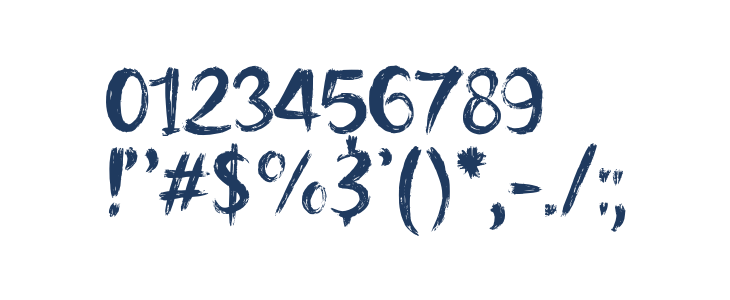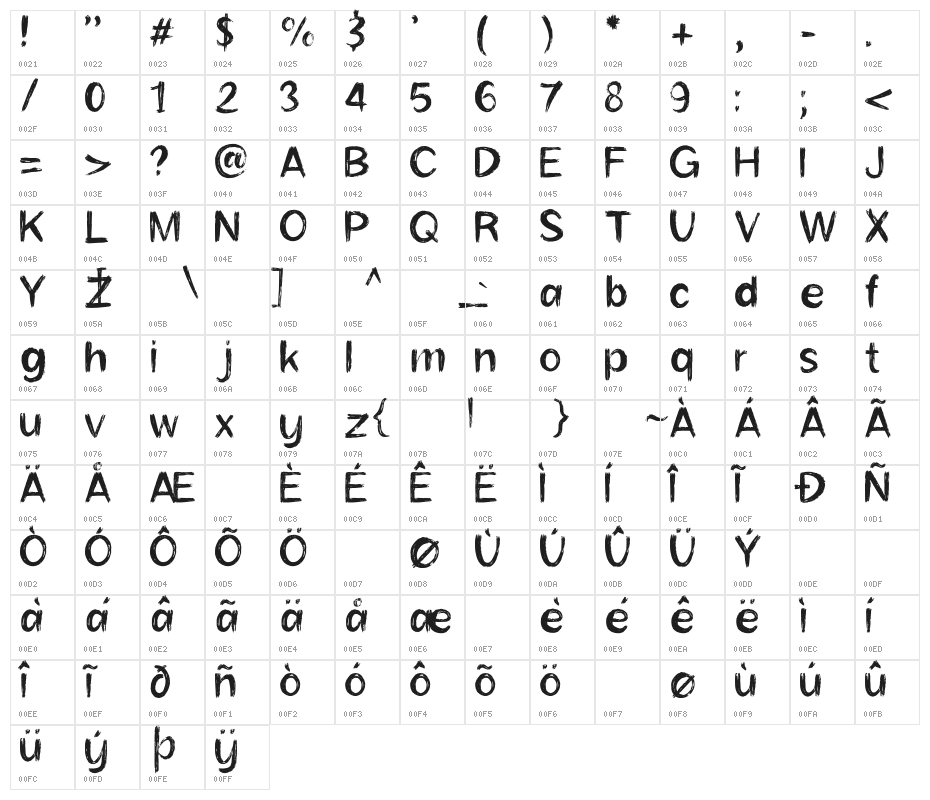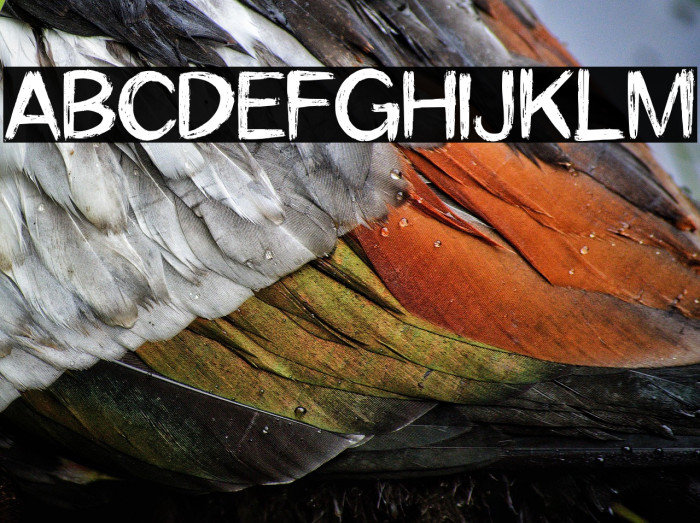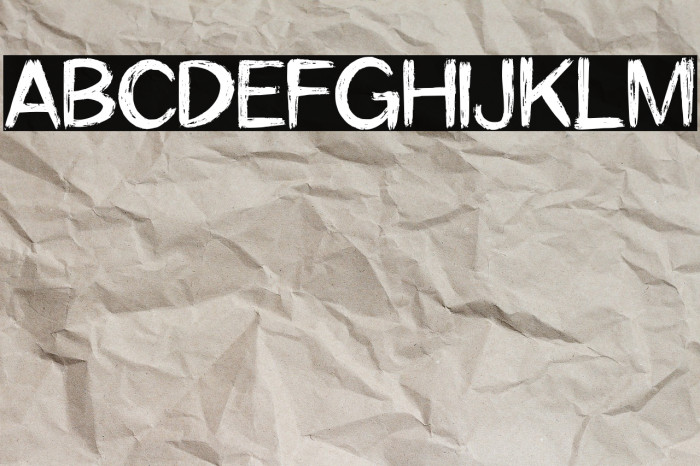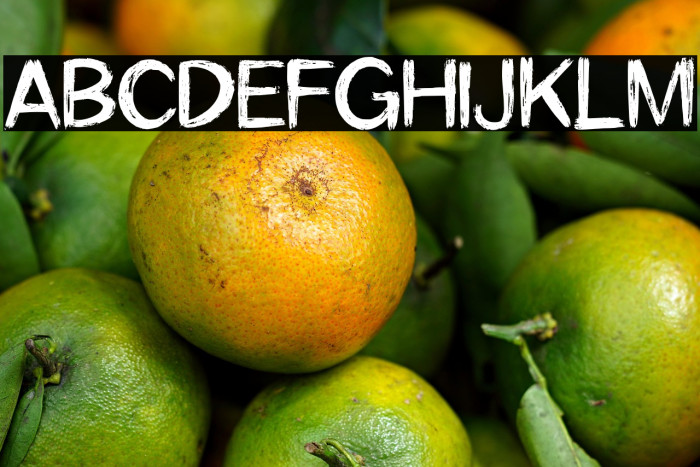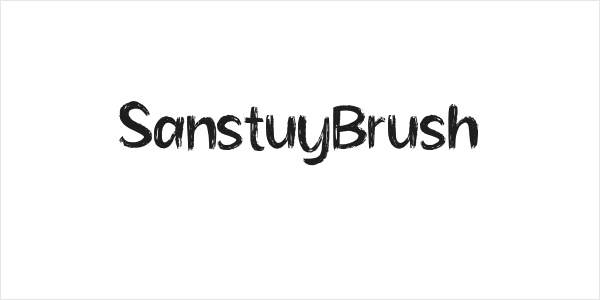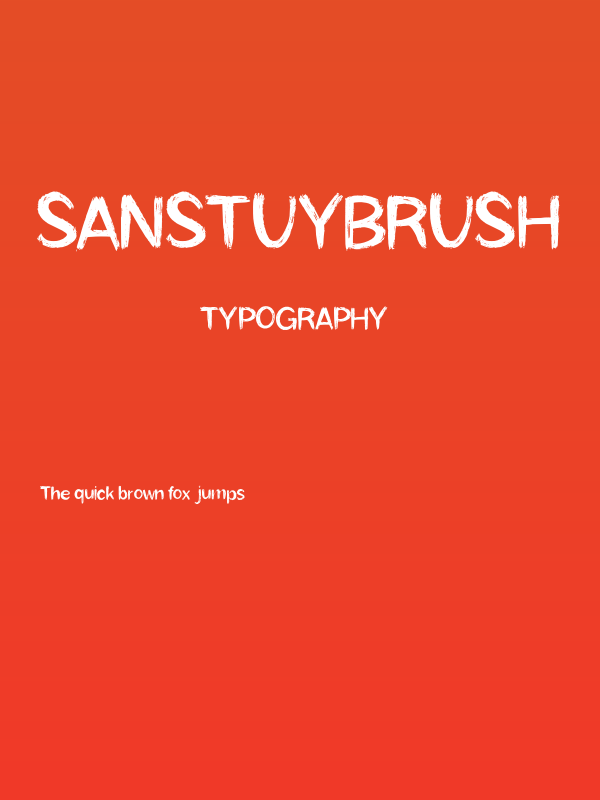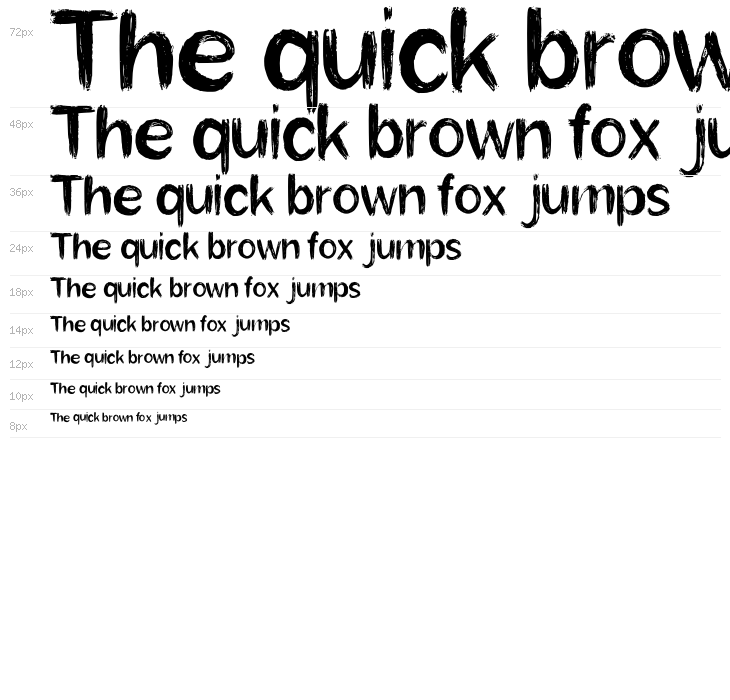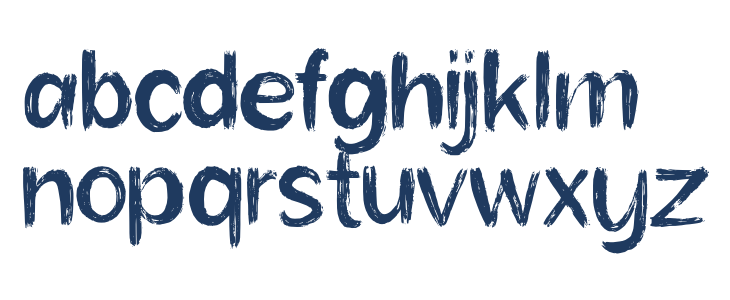
SanstuyBrush Font
SanstuyBrush Description
This font features a bold, expressive brush style that mimics the texture and flow of hand-painted lettering. The strokes are uneven and dynamic, giving each character a unique and artistic appearance. The uppercase and lowercase letters maintain a consistent height, while the numbers and special characters are crafted with the same energetic brush effect. This font's rough edges and varied line thicknesses create a sense of movement and spontaneity, making it ideal for projects that require a creative and informal touch.